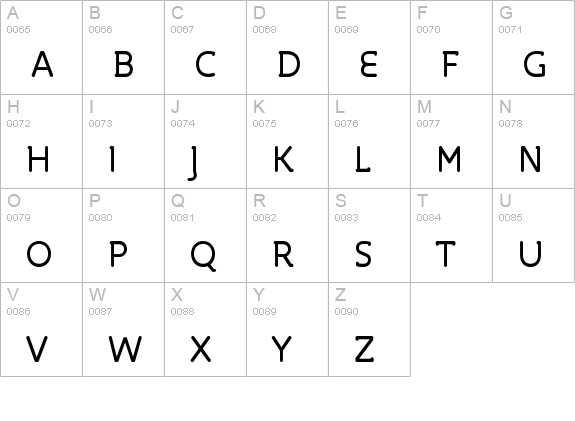
Roice-Medium is a balanced, medium-weight variant in the Roice typeface family \xE2\x80\x94 well suited to sub-headlines, navigation, and balanced editorial work.
Roice-Medium font is a sleek and modern typeface that exudes elegance and sophistication. With its clean lines and balanced proportions, this font is perfect for a wide range of design projects. The Roice-Medium font is versatile and easy to read, making it ideal for both digital and print applications. The best part? Roice-Medium font is available for free download at FontsMarket.com. So, whether you're working on a branding project, creating a website, or designing marketing materials, you can use this beautiful font without breaking the bank. Don't miss out on this fantastic opportunity to elevate your designs with the Roice-Medium font – download it for free today!